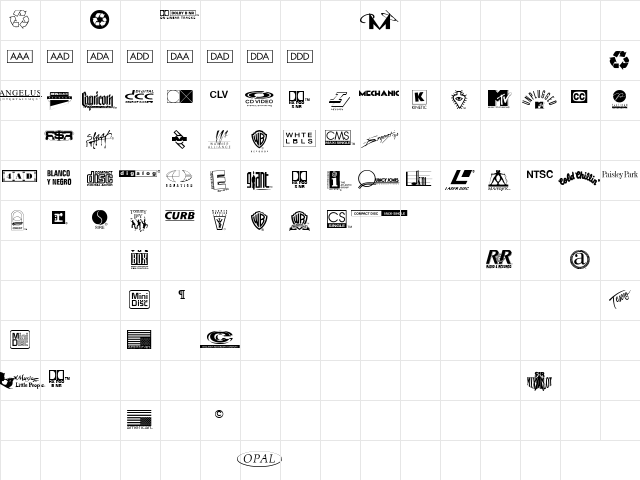
WarnerLogoFontNine Regular
Design Context for WarnerLogoFontNine Typeface
WarnerLogoFontNine is a composed and adaptable typeface that performs quietly and consistently across a wide range of design contexts.